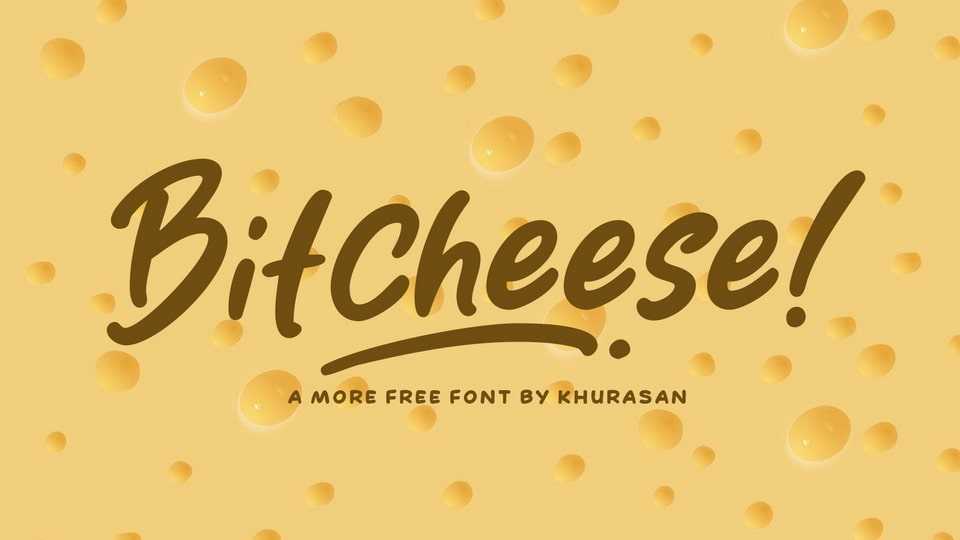
Download Bitcheese font, an authentic, hand drawn brush font made with real marker pens. With its organic and natural look, Bitcheese font is ready to make a big impression.